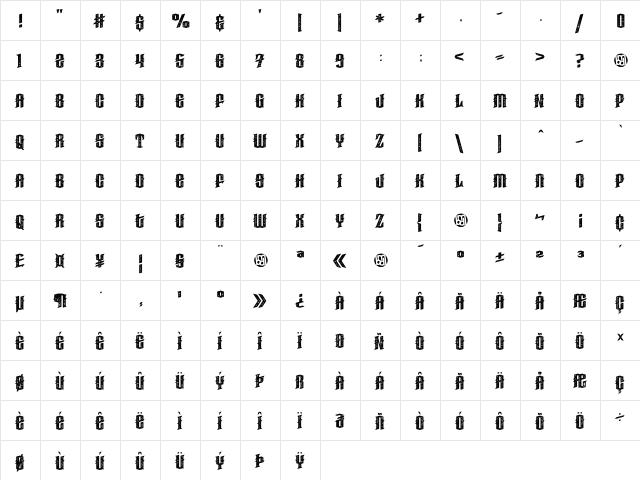
Haunted Woods Corroded Demo Regular
| Foundry | Brittney Murphy |
| Designer | Brittney Murphy |
Design Context for Haunted Woods Corroded Demo Typeface
Haunted Woods Corroded Demo taps into classic Western woodtype traditions — bold, characterful, and impossible to ignore.
A natural fit for craft spirits, ranch branding, rodeo events, and Americana-inspired design work.
Font Pairing: Combine Haunted Woods Corroded Demo with a simple slab or neutral sans — period-accurate companions reinforce the vintage feel without competing for attention.
Pro Tip: Use Haunted Woods Corroded Demo for short, impactful bursts of text — it shines in poster headlines and product names rather than extended copy.